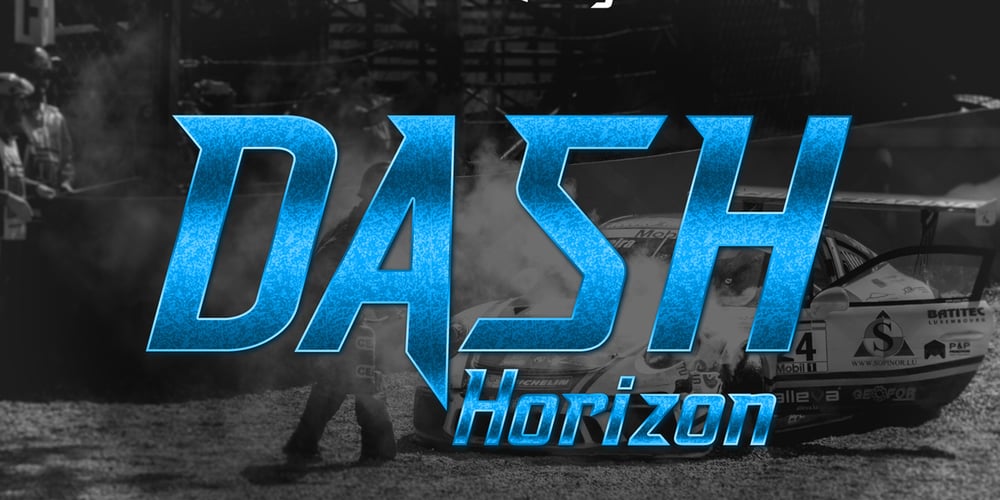
Dash Horizon Stripe Font Family was designed by A A Ngurah A Krisna Teja and published by Anomali Creative. Dash Horizon Stripe contains 4 styles and family package options. Dash Horizon is a new sporty, modern and fresh script with a bold, strong style making this font look extreme, strong, and tough for any awesome project that needs a sporty look.Dash Horizon features the distinct impression of speed. It works well in vintage racing posters, automotive t-shirts, motorcycle events, garage signs, kid’s cards, esport logos, race numbers, extreme sports and more.